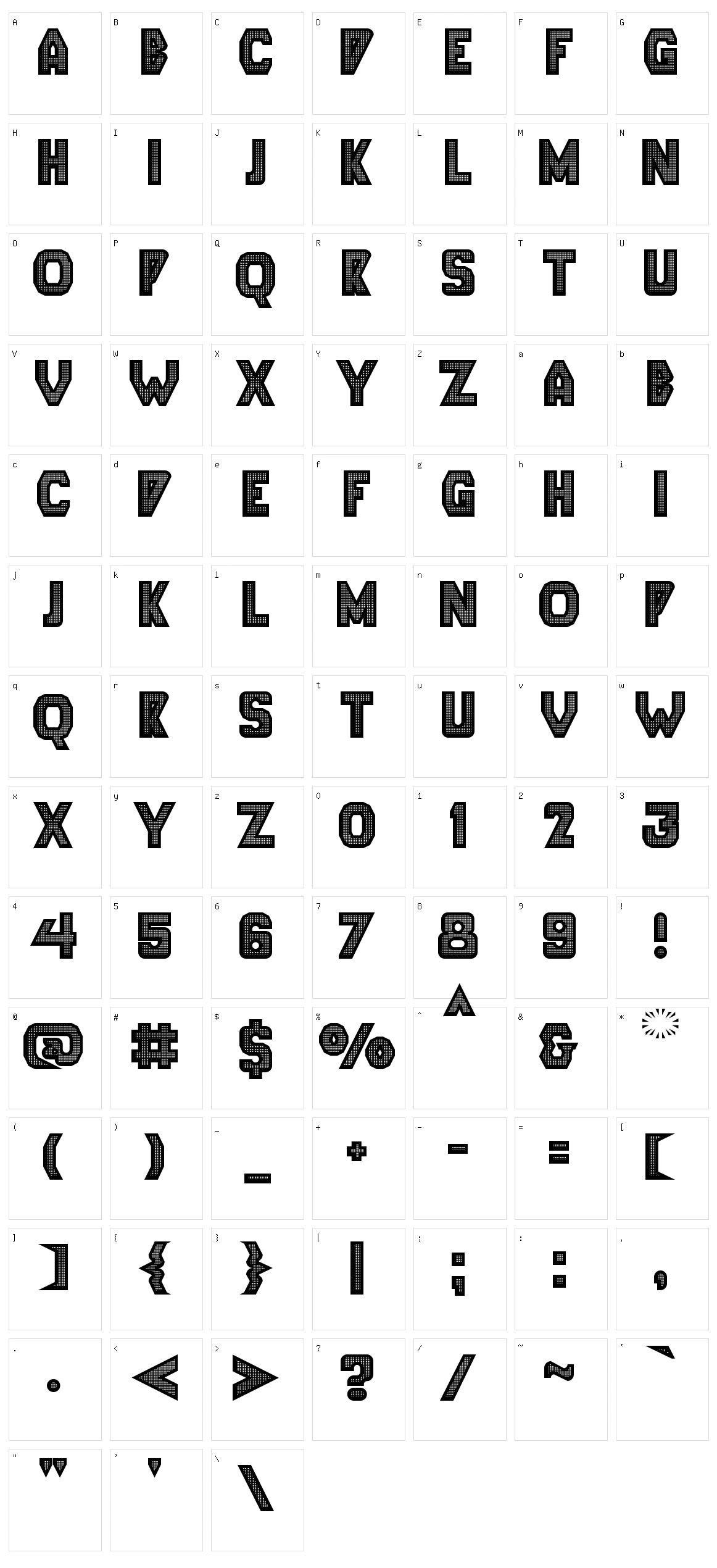
Lephnia Display Caps
QUICK SYNOPSIS
Lephina Display Caps offers 108 glyphs. The font supports the Basic Latin character set (upper case characters are copied to the lowercase register, numerals, basic punctuation and symbols (@ $ % ^ &) are available, including the TM and SM marks, Copyright and Registered symbols, the TEL sign. There is another version with lowercase, more characters, better attention to kerning and multilingual support.
ABOUT THIS FONT
Cloned from my font 'Vertalics' originally, but nothing remains of that font, this turned into a complete rework once I decided where I wanted to take it.
It's just an outlined novelty sans font in a black weight with a repeating pattern, or texture, which is a mesh grid allowing the background to glimmer through. Therefore, this font demands to be seen in a large format (poster/billboard/titling) sizes, or possibly headlines. I does do extremely well for dramatic HD or 4K video titles and graphics.
Type: Sans Serif
Weight: Black